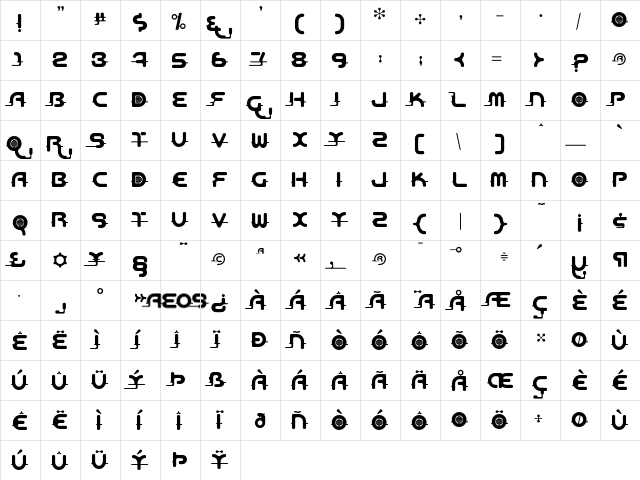
Aeos Operating Font Preview
Aeos Operating
Design Context for Aeos Typeface
Aeos is a composed and adaptable typeface that performs quietly and consistently across a wide range of design contexts.